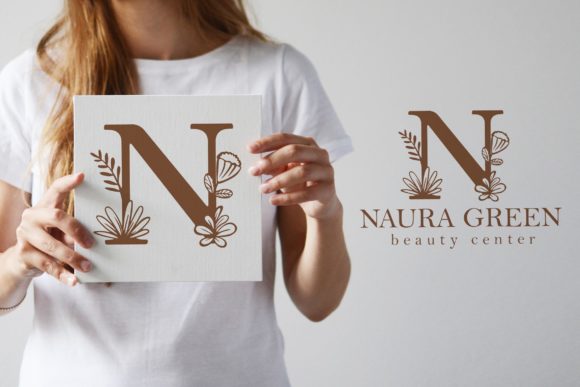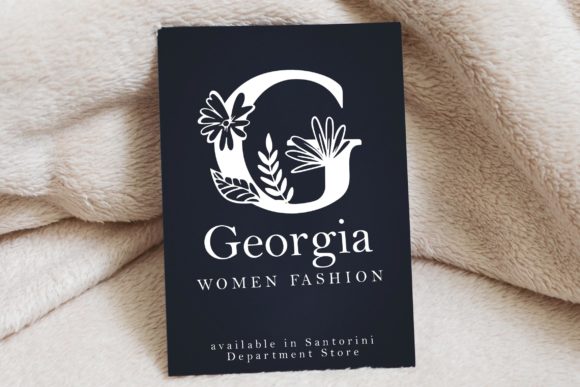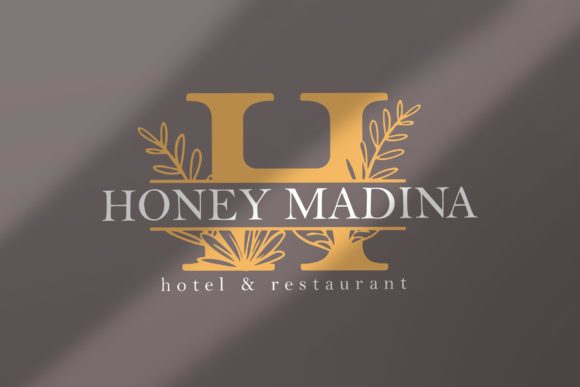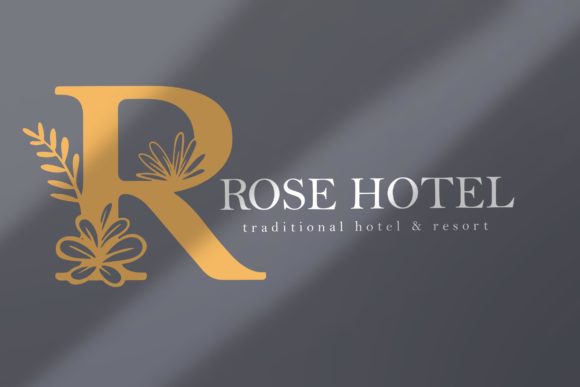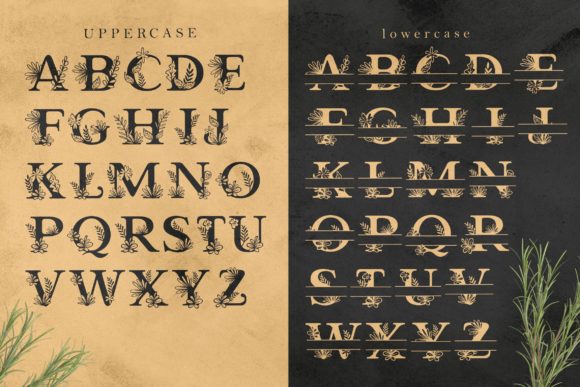
Introduction to Manila Beauty Monogram Font Font
Fonts play a crucial role in design, and the Manila Beauty Monogram Font font is a typeface that brings both character and versatility to any project. Whether you’re working on a branding project, a website, or a print design, the Manila Beauty Monogram Font font offers a unique style that can elevate your work.
Manila Beauty Monogram is a sweet decorative font, featuring lovely flower ornaments.
Key Features of Manila Beauty Monogram Font Font
Why Choose Manila Beauty Monogram Font Font?
The Manila Beauty Monogram Font font is more than just a typeface – it’s a design tool that helps you communicate your message with style and clarity. Its unique character set and versatile design make it suitable for a wide range of applications, from elegant invitations to bold headlines.
With its carefully crafted letterforms and balanced proportions, the Manila Beauty Monogram Font font ensures readability and visual appeal across all mediums.
What makes Manila Beauty Monogram Font font special?
The Manila Beauty Monogram Font font stands out with its unique design, exceptional readability, and versatility across various design applications.